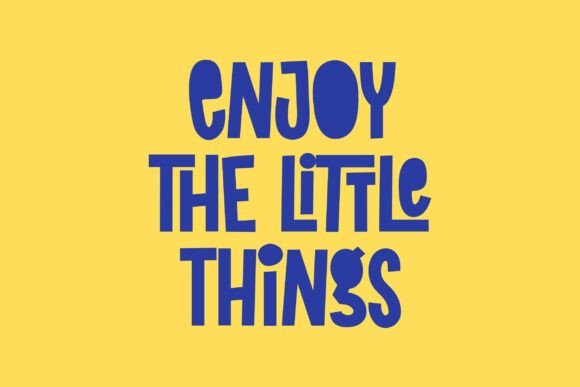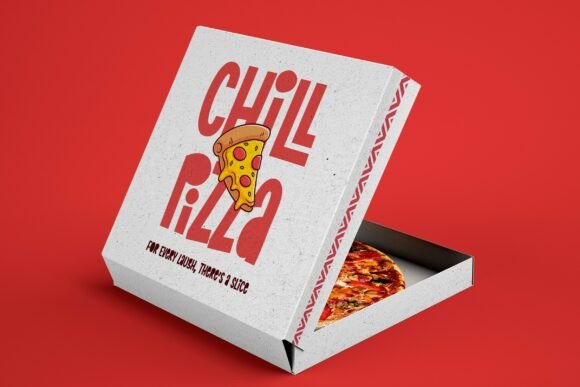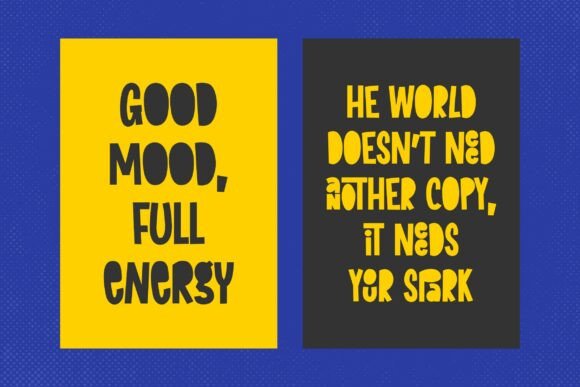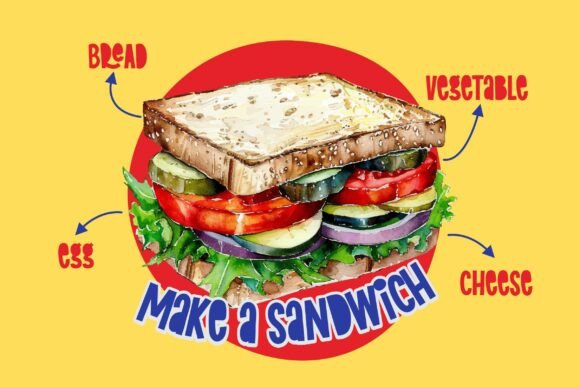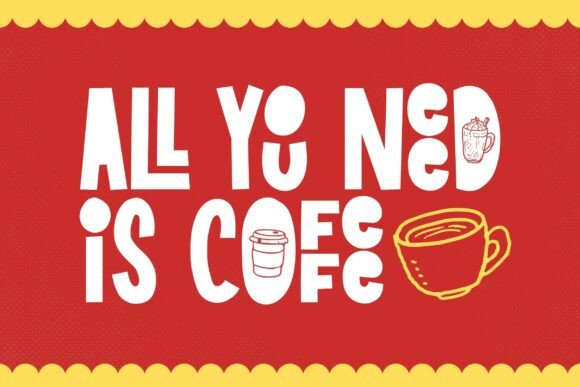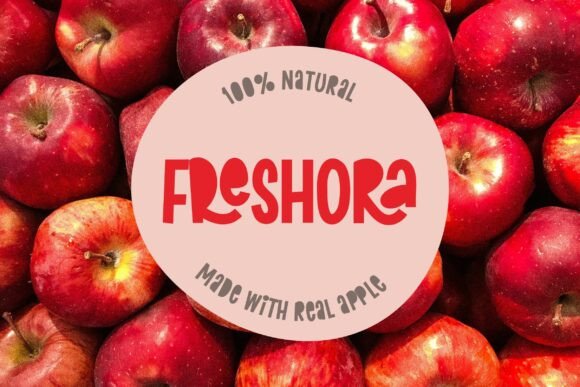
The Ultimate Design Hack: Unleashing the Quirkiness of Donut Buffet Font
I’ll never forget the time I was working on a branding project for a trendy donut shop. My client wanted a font that was fun, playful, and a little bit quirky. I scoured the internet for hours, but nothing seemed to fit the bill. That was until I stumbled upon Donut Buffet Font. This intentionally “ugly” sans font has been a game-changer for my design projects, and I’m excited to share its awesomeness with you! 😊
An Honest Review: The Good, the Bad, and the Quirky
What I Love About Donut Buffet Font ✨
- ✅ Unique and quirky design: Each character is carefully crafted with bold and smooth shapes, giving your design a touch of chaos and personality.
- ✅ Perfect for logotypes and branding: Donut Buffet Font is ideal for creating memorable and eye-catching logos, watermarks, and branding materials.
- ✅ All-caps and ligatures: The font includes interesting ligatures, adding an extra layer of creativity to your designs.
- ✅ Fun and expressive: Donut Buffet Font is perfect for designers who want to add a dash of whimsy to their projects.
- ⚠️ All-caps only: If you need a font with lowercase letters, Donut Buffet might not be the best choice.
- ⚠️ Limited use cases: While the font is versatile, it might not be suitable for very formal or traditional designs.
Donut Buffet Font was created by a team of designers who wanted to craft a font that was intentionally “ugly” and quirky. Inspired by the playful, chaotic world of donut shops, they set out to create a font that would bring a dash of whimsy to design projects. The result is a font that’s equal parts fun, expressive, and unique.
| Font Name | Donut Buffet Font |
| Author | ergibi studio |
Q: What is Donut Buffet Font?
A: Donut Buffet Font is a quirky, unique sans font crafted for fun and expressive design projects.
Q: Is Donut Buffet Font suitable for formal designs?
A: While Donut Buffet Font is versatile, it might not be the best choice for very formal or traditional designs.